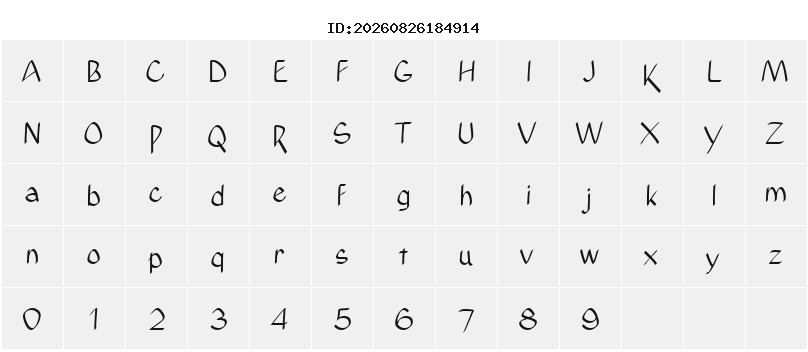
Xahosch Preview
• Font Name: Xahosch
• Full Font Name: Xahosch
About Xahosch.ttf
Xahosch.ttf is a modern, elegant sans-serif font designed for ultimate readability and visual harmony. Perfect for branding, headlines, web design, and print materials.